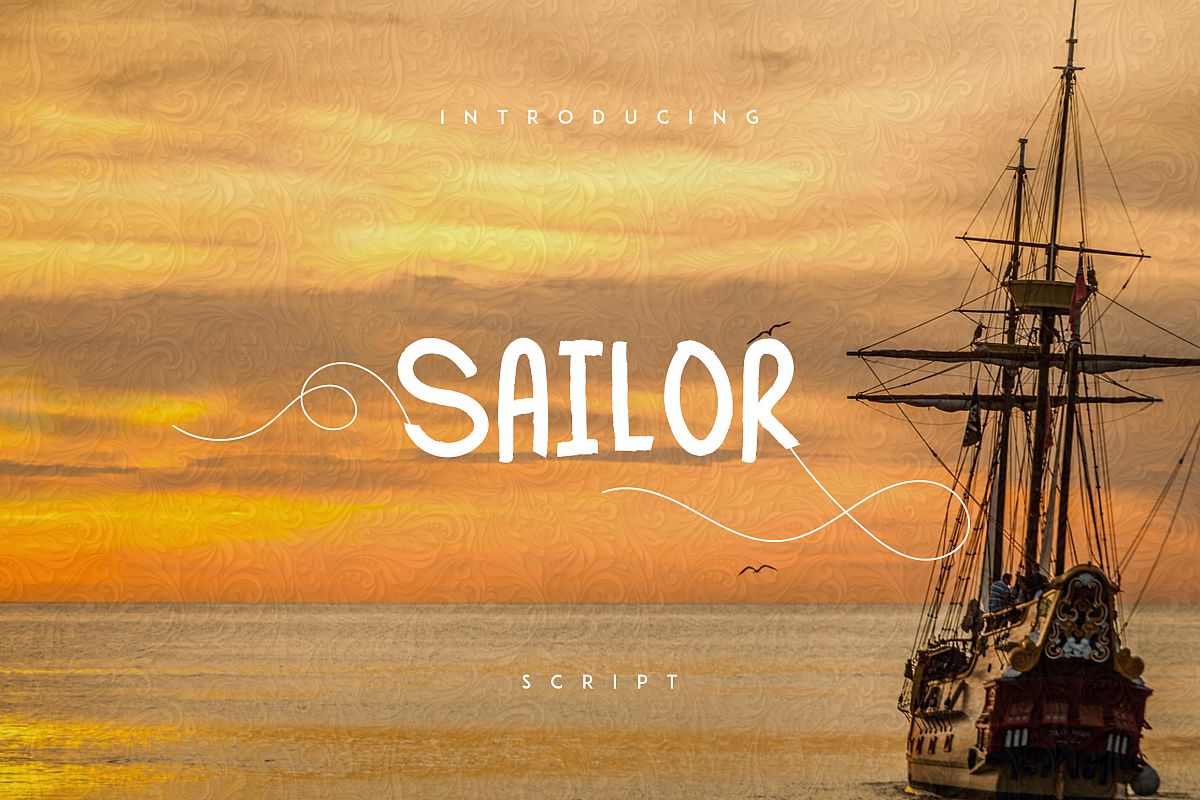
Sailor font
SailorRegular
INTRODUCING...! Sailor font
Sailor is a script typeface with personality. You can use it as a logo, badge, insignia, packaging, headline, poster, t-shirt/apparel, greeting card, and wedding invitation. The characters are ideal to make an attractive messages.